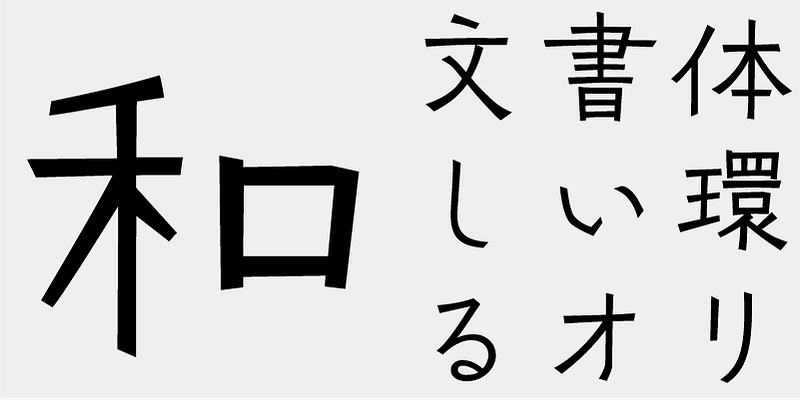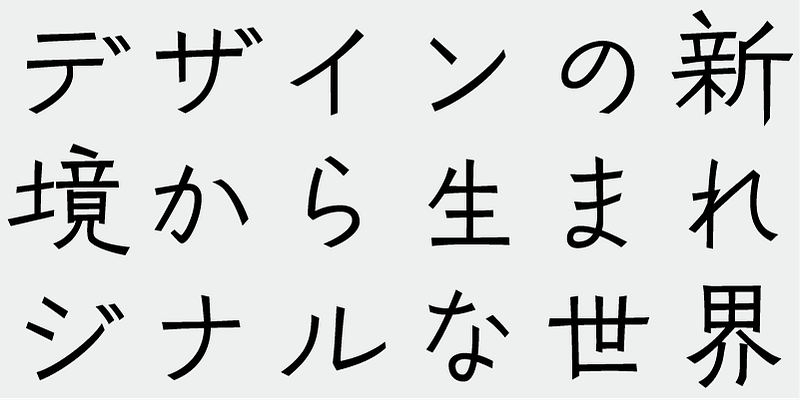
A revised version of “TA-Sakura,” a font created in my twenties. Designed to capture the gentle atmosphere of cherry blossoms.
This font includes the top 1,000 kanji characters selected from usage frequency lists compiled by newspaper companies, publishers, and the National Institute for Japanese Language and Linguistics, plus 206 additional characters such as kana, alphanumerics, and carefully selected symbols and punctuation marks.